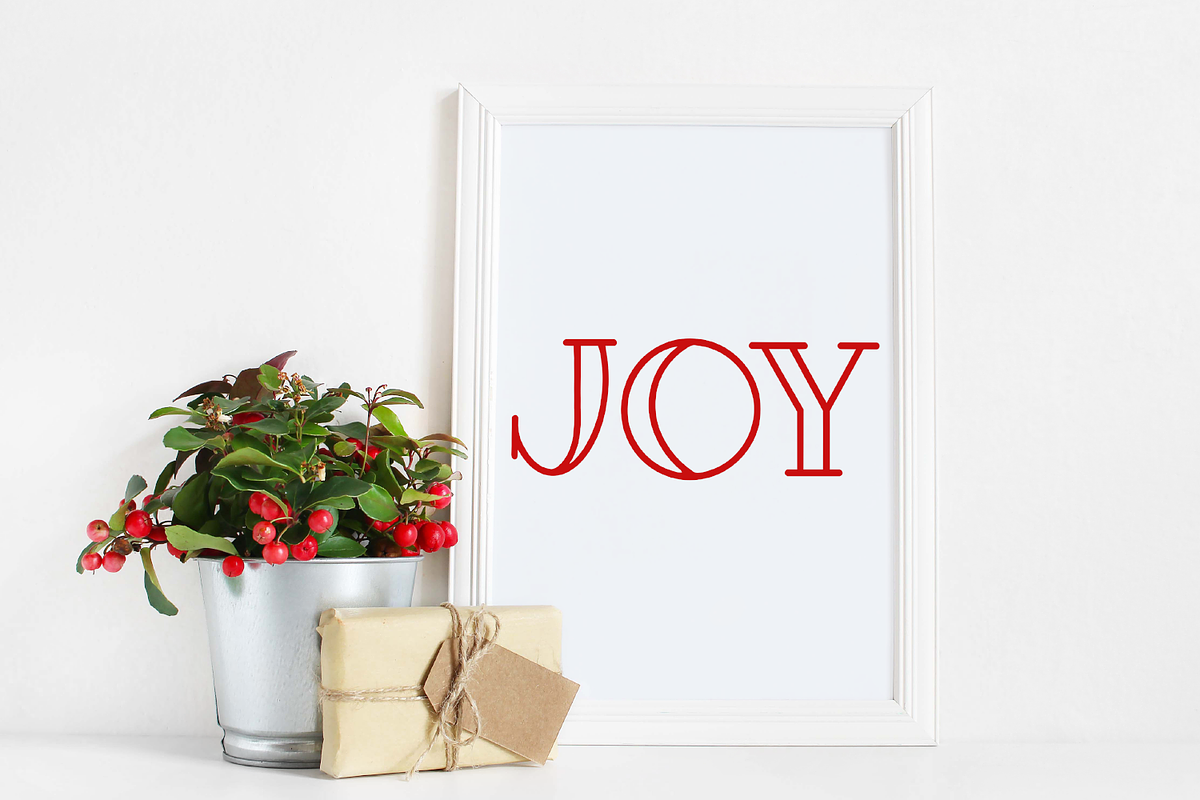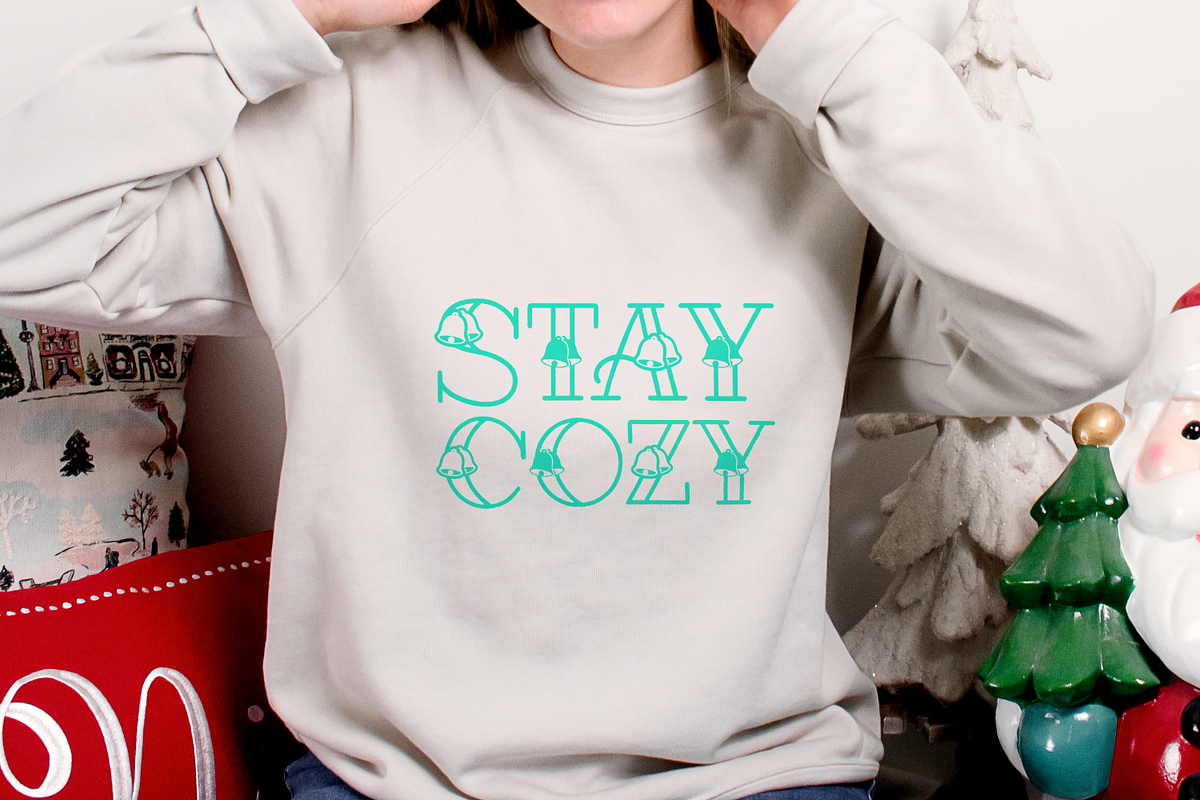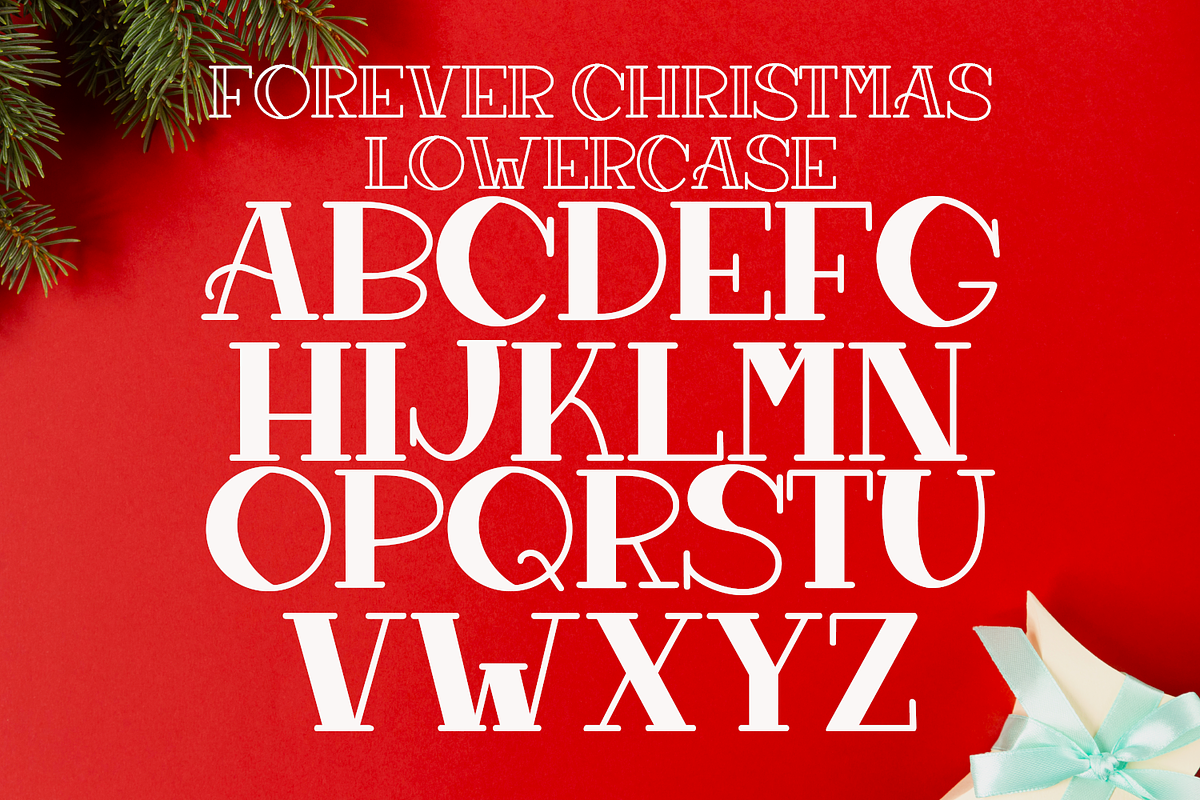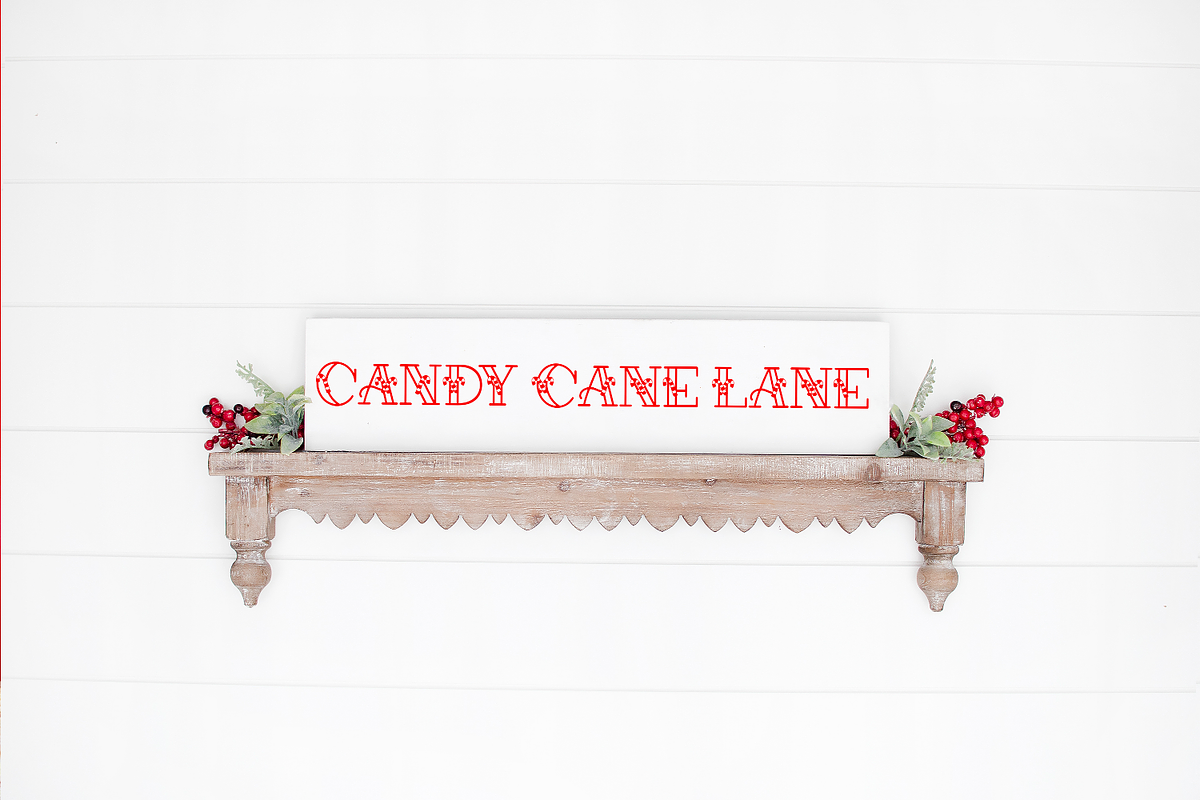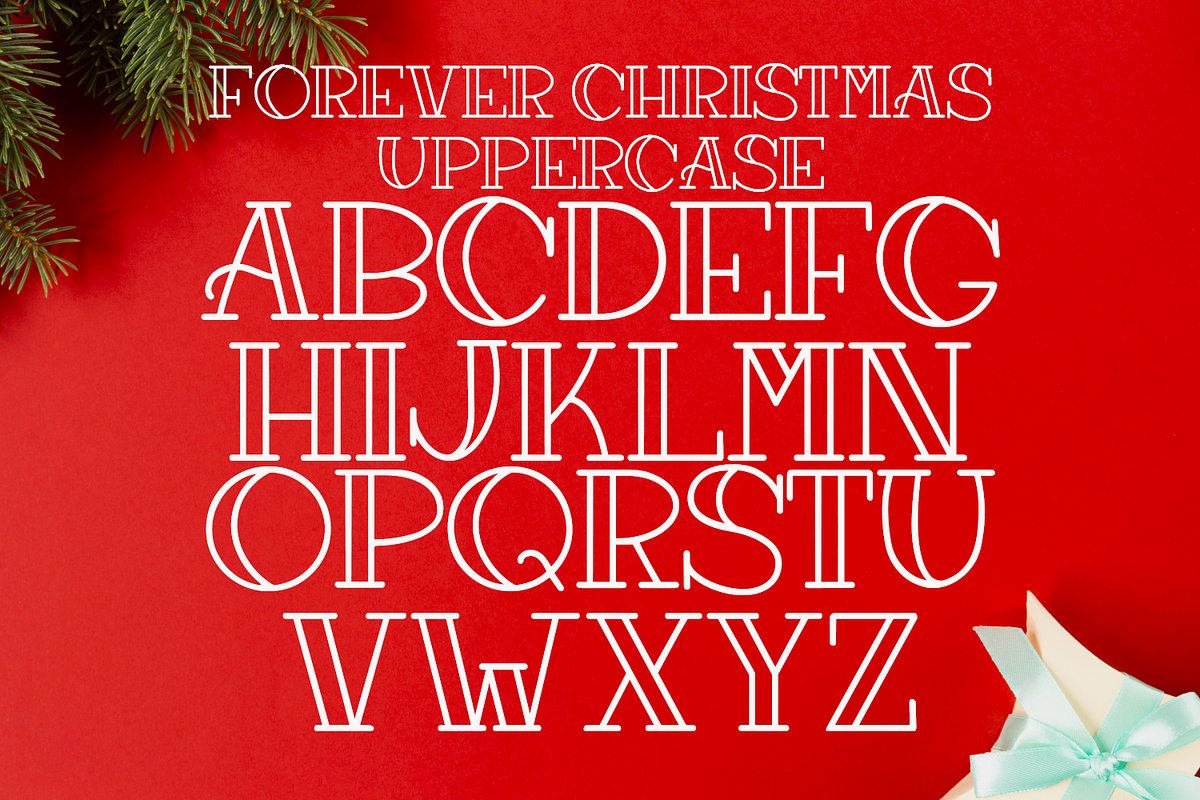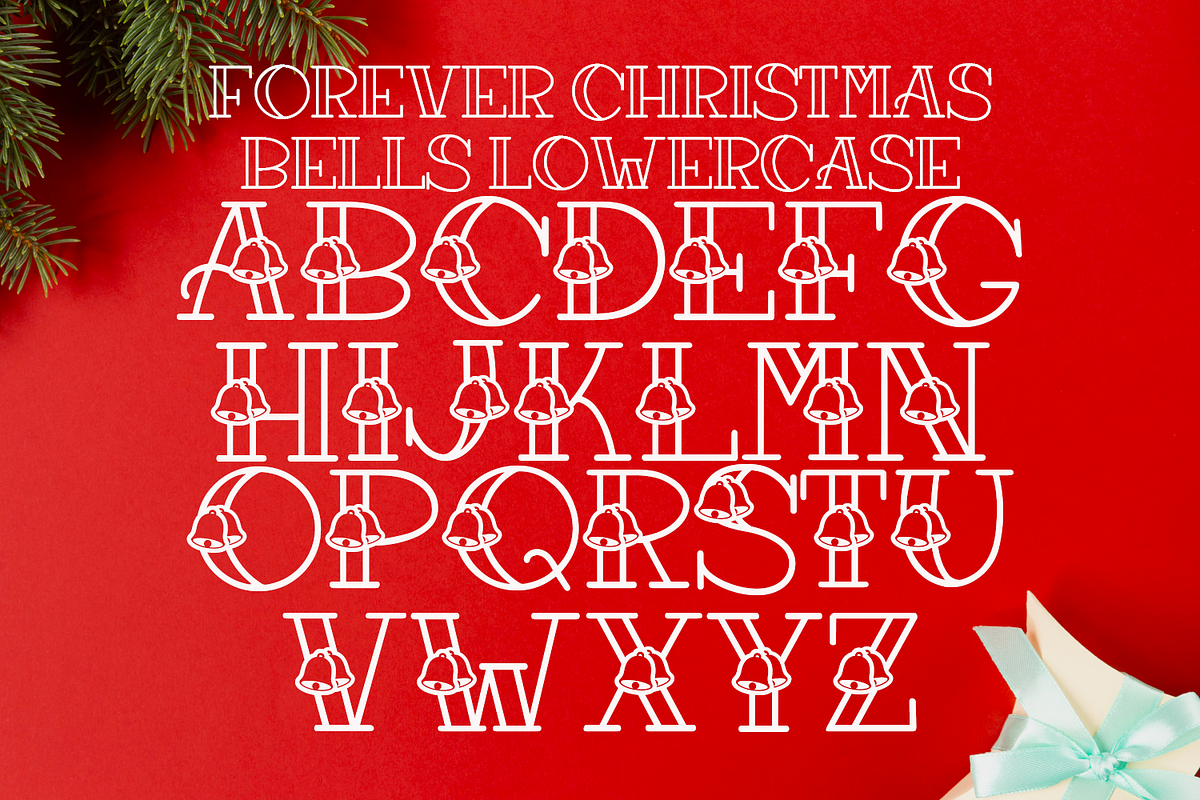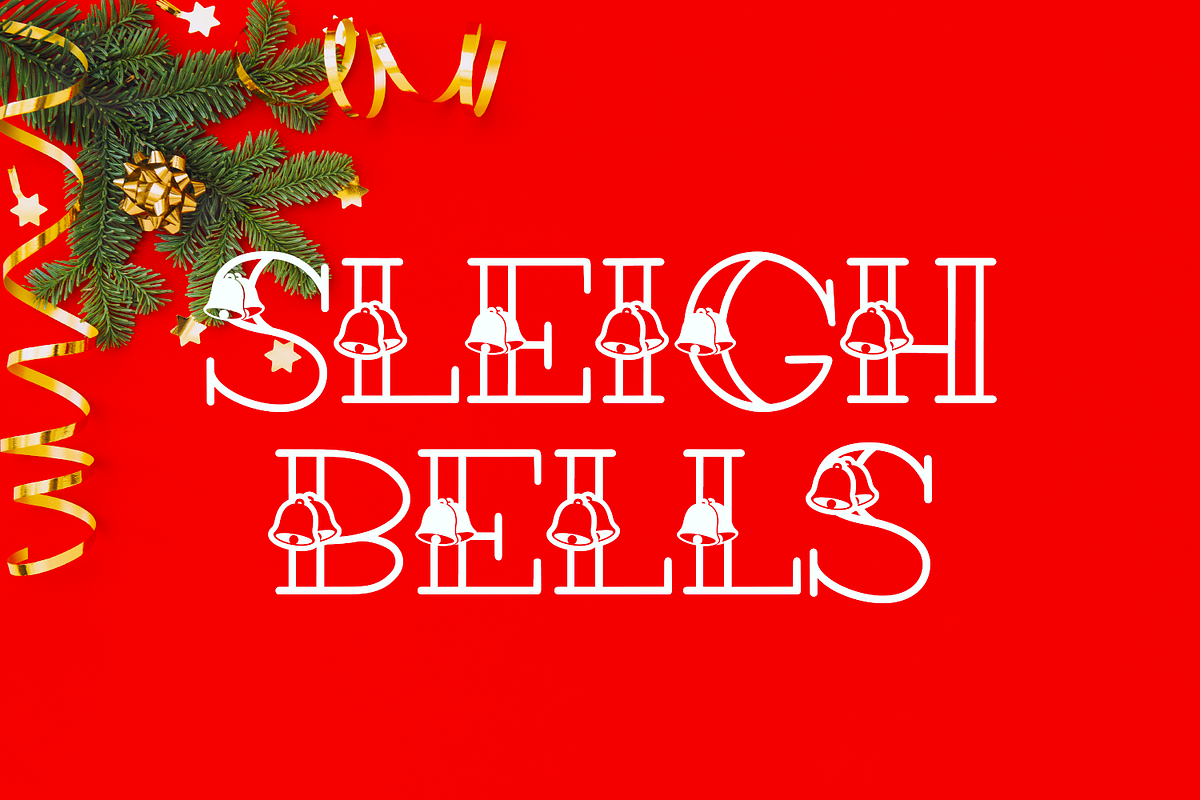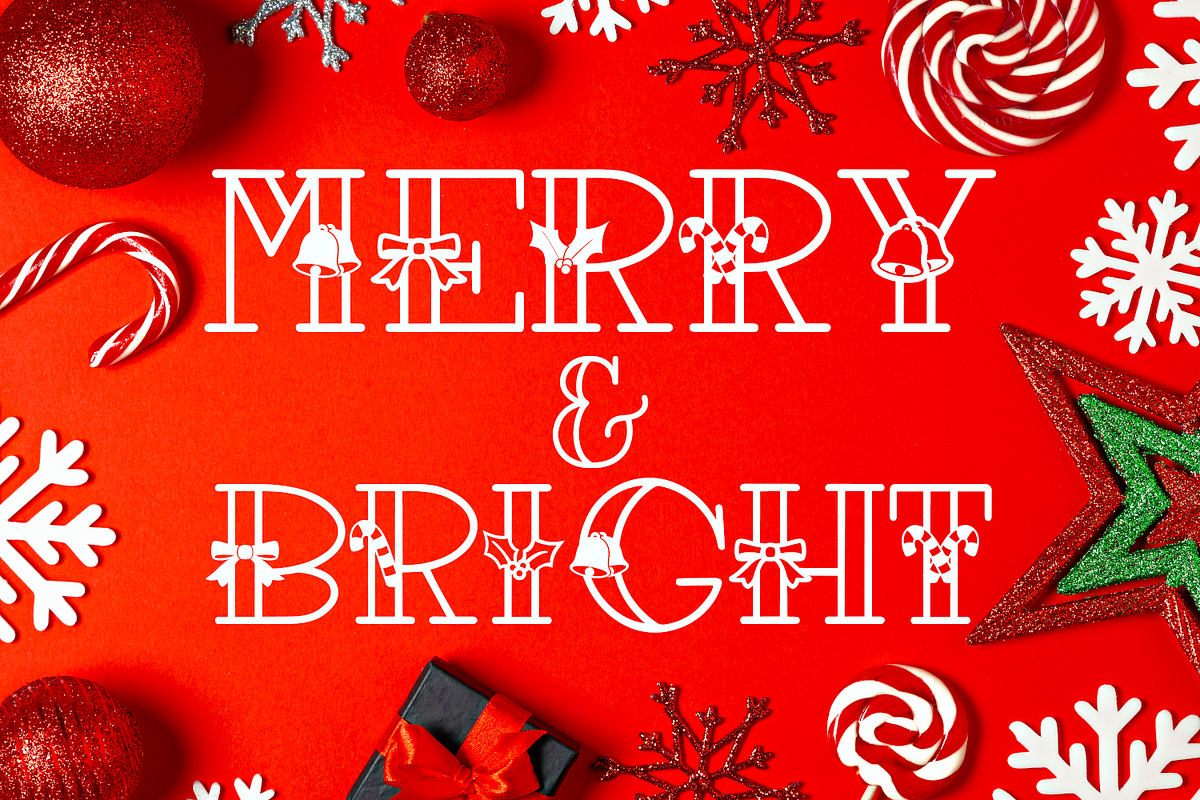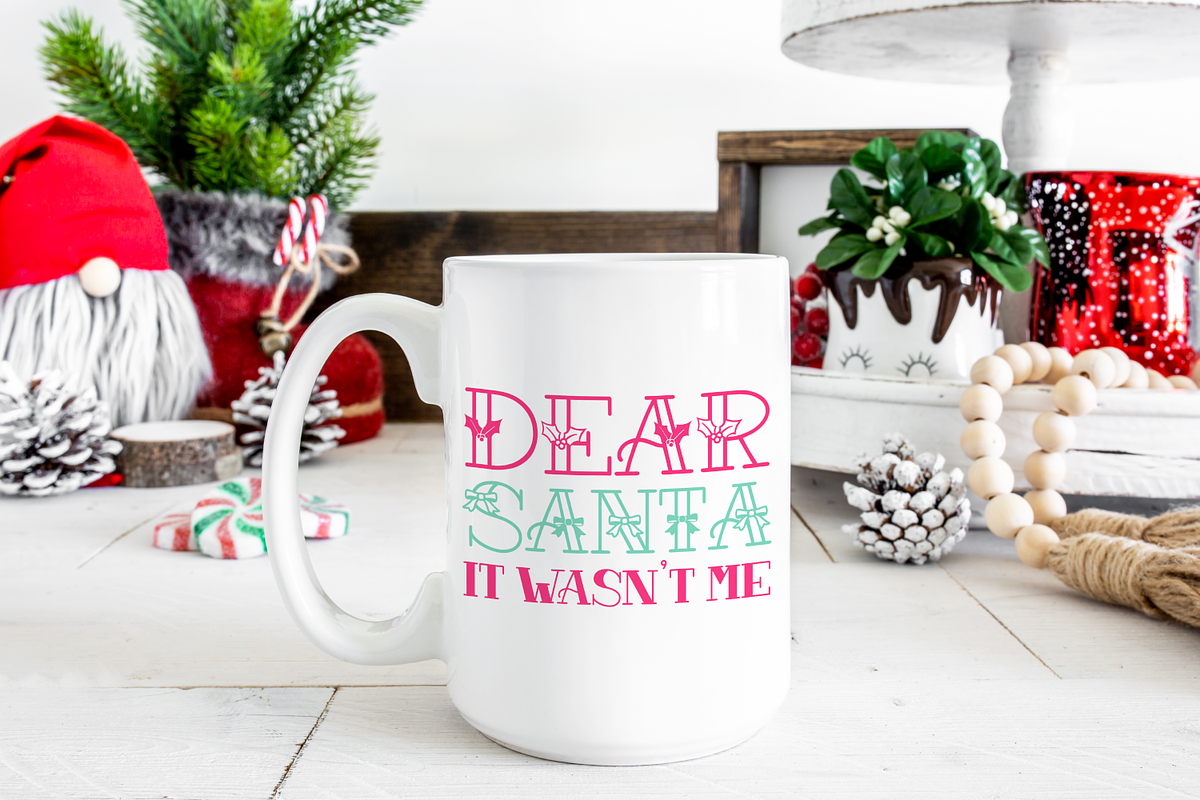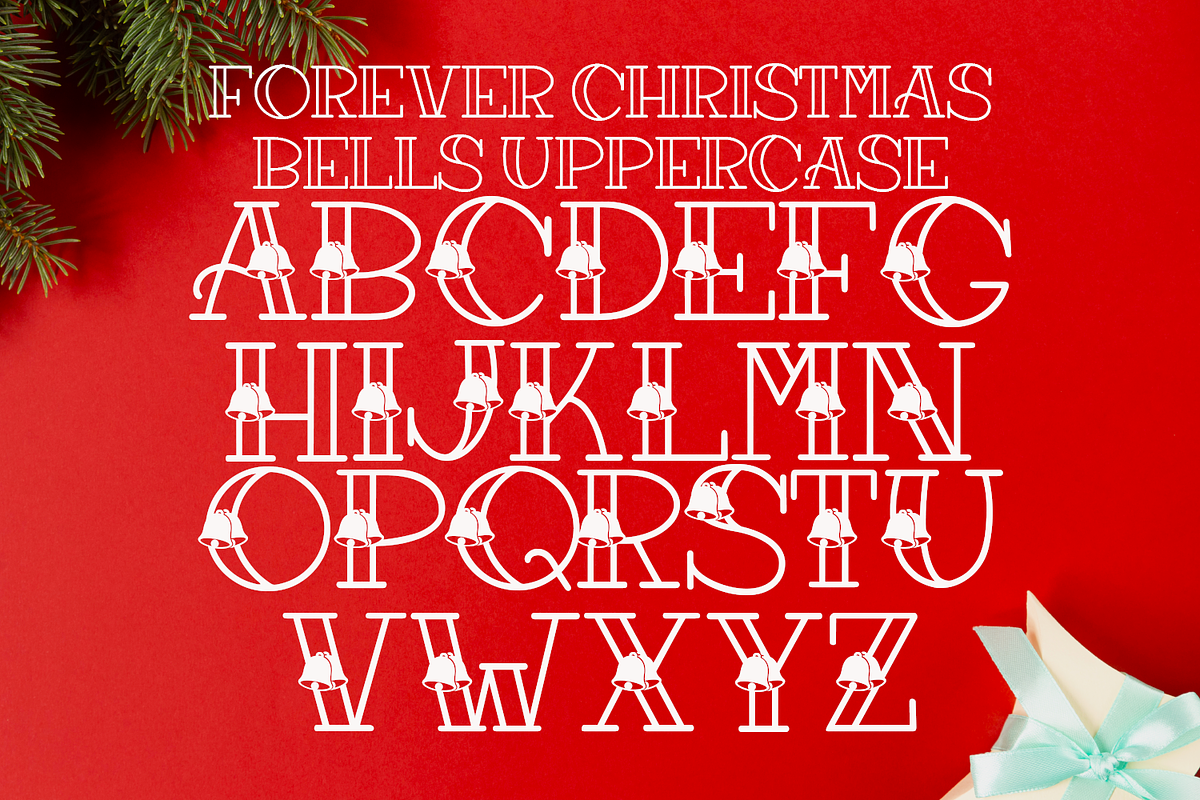
Forever Christmas
Meet Forever Christmas! A holly jolly Christmas font family!
This big flashy serif font is perfect for Christmas designs. Use it in your cards, gifts, signs and more!
This family features 5 fonts:
** - Regular
- Bells
- Bows
- Candy Cane
- Holly Jolly**
Mix and match these fonts or use them independently.